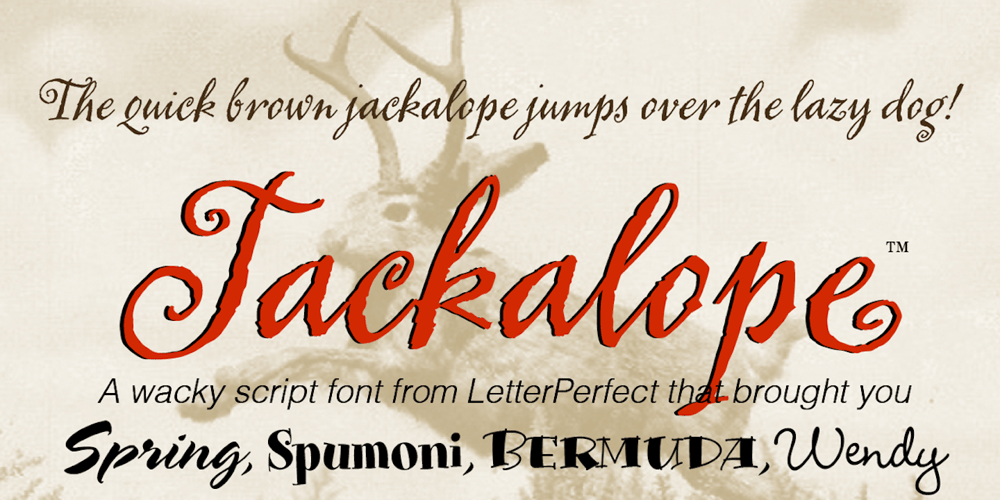
Jackalope LP Font Family was designed by Garrett Boge, Myron McVay, Kathy Schinhofen and published by LetterPerfect. Jackalope LP contains 2 styles and family package options. Jackalope is a new original script font from LetterPerfect Fonts. The design is a hybrid of pressure-pen calligraphy infused with whimsy and curlicue terminals. Letterforms are free-spirited and edges are rough, simulating spontaneous writing on rough paper. In addition to the full ANSI western character set, Jackalope includes a full set of small capitals, both lining and old-style numbers, and swash lowercase alternate characters that can be used as terminal letters at the ends of words for additional flourish.The genesis and realization of Jackalope was also a hybrid process. In 1996, LetterPerfect commissioned type designer Kathy Schinhofen to provide pen-written source material based on her commercial handwriting style and specifically on a logo she had designed for its “Viva la Fonts” line of script fonts. This work was digitized by LetterPerfect’s Garrett Boge and later fonticized by former Hallmark Cards type maven Myron McVay who unified the design and contributed additional characters. The design sat unfinished for over 12 years until Garrett Boge revived the project in 2010 filling out the extended character set.Jackalope is released in two versions: Jackalope LP Regular, which is the base font for continuous text setting; and Jackalope LP Expert, which includes swash variants, small capitals, and old-style numerals which can be swapped into text for extra flourish and effect.